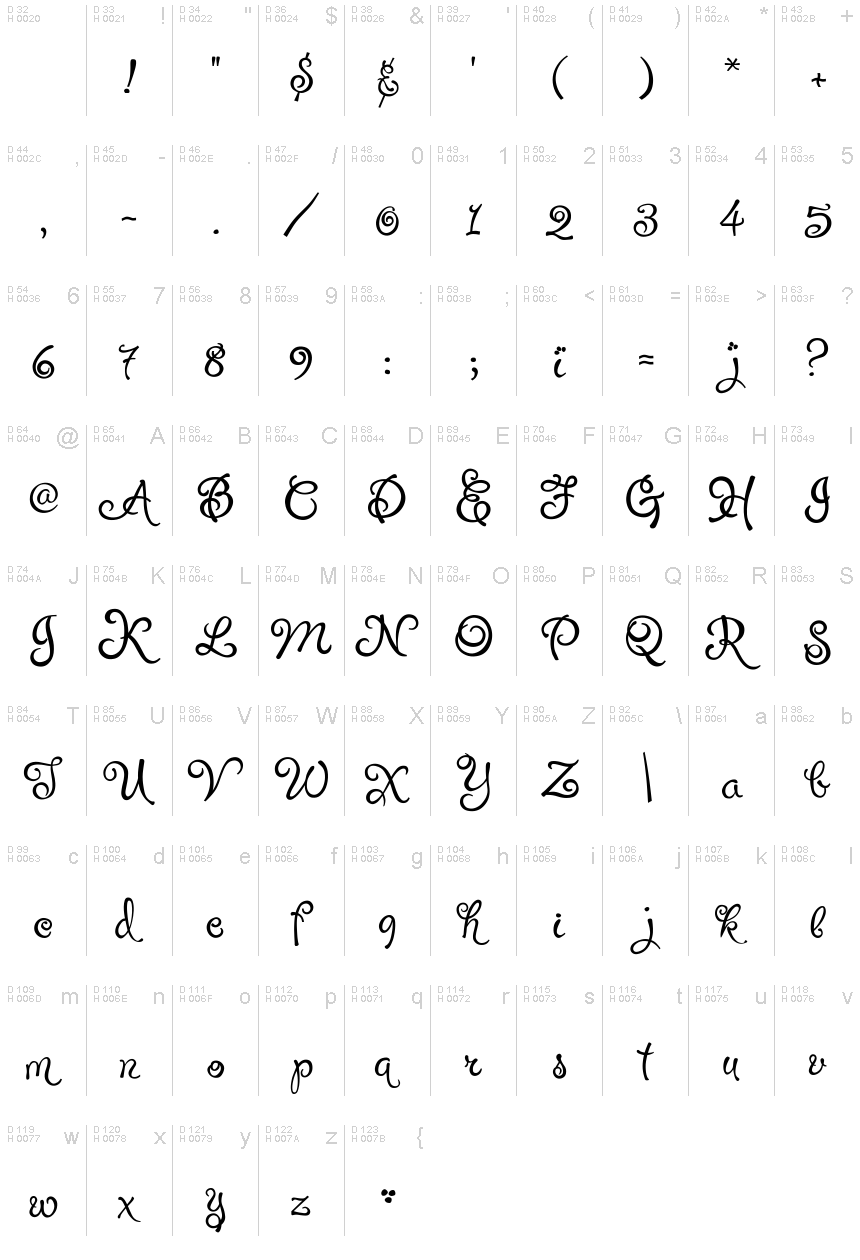
PuppyPooky
"Puppy Pooky" is a delightfully whimsical display font designed by Nevi A. With its curling, playful strokes, this font exudes a sense of joyful energy and playfulness. The flowing, organic lines create a captivating visual rhythm, lending a touch of charming personality to any design. Puppy Pooky's distinctive style would shine in headings, branding, and creative projects, adding a warm, inviting tone to digital and print media.
Its versatility makes it a compelling choice for a wide range of applications, from children's books and stationery to fashion and lifestyle branding.
The new aim is to create some TTF's to match the embroidery styles wince more are doing combination work. It'll save having to hunt for fonts as is often the case when it comes to embroidery styles. Embroidery files are sometimes diversely different from normal TTF creations.